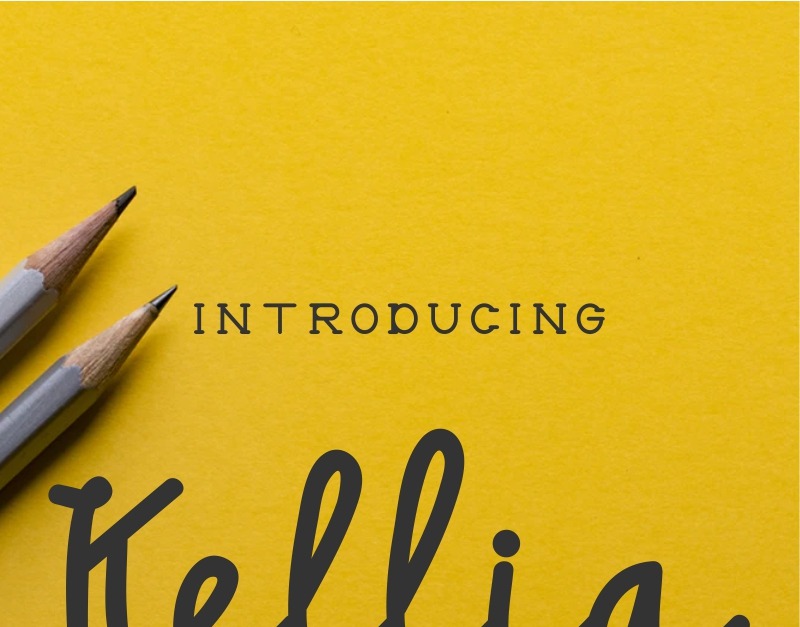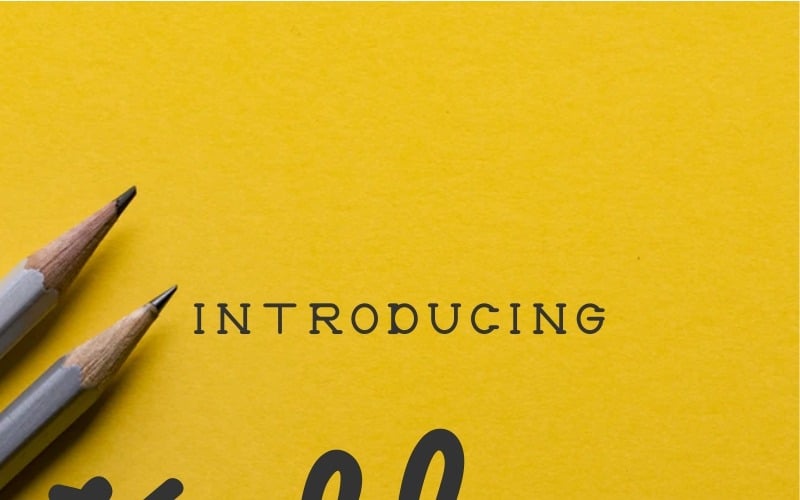
Kellia Wakeup Font
Introducing : Kellia Wakeup font family.
Kellia Wakeup is a font family with three exclusive styles : script, serif and outline. It has a classic and beautiful unique glyphs. Once purchased You will get :
Kellia Wakeup will be great for branding, logo, trademark (extended license required), stationery, business card, signage, flyer, brochure etc. There are many industries that is suitable for this font : wedding, restaurant, cafe, photography, product, promotions etc
Kellia Wakeup font is alsoavailable on multiple international language characters